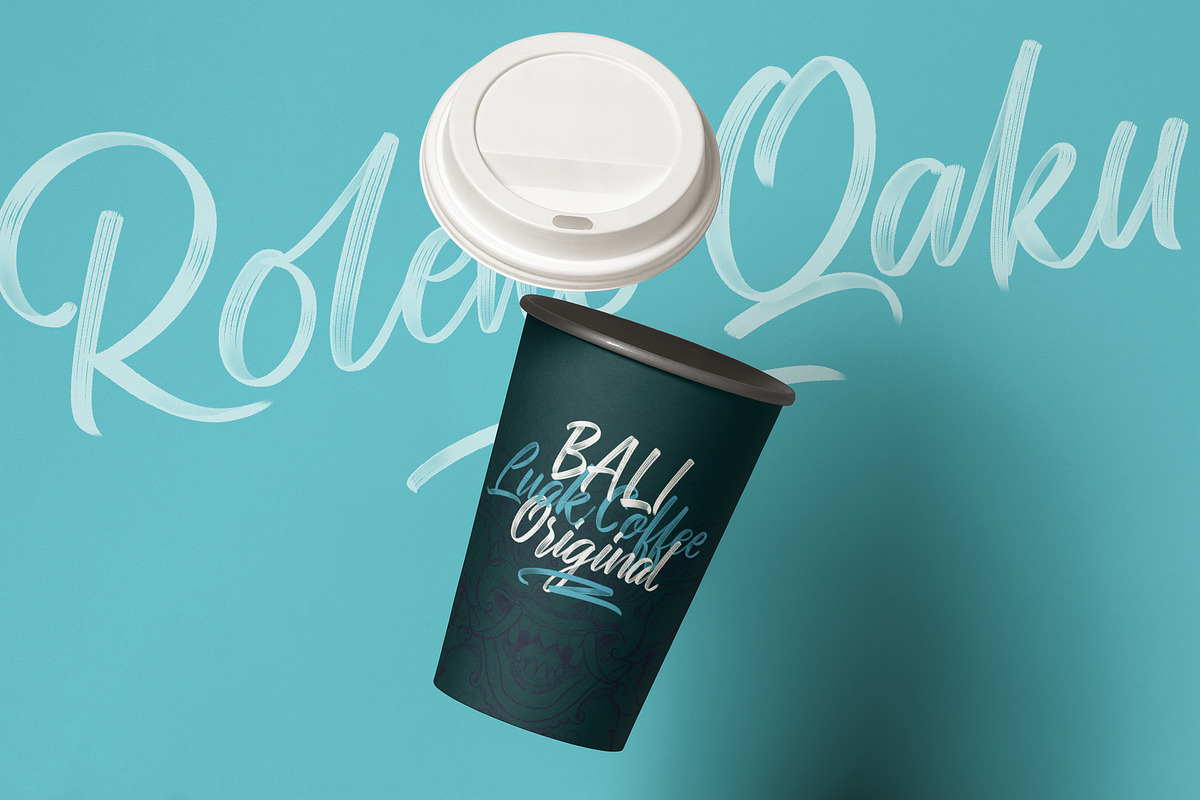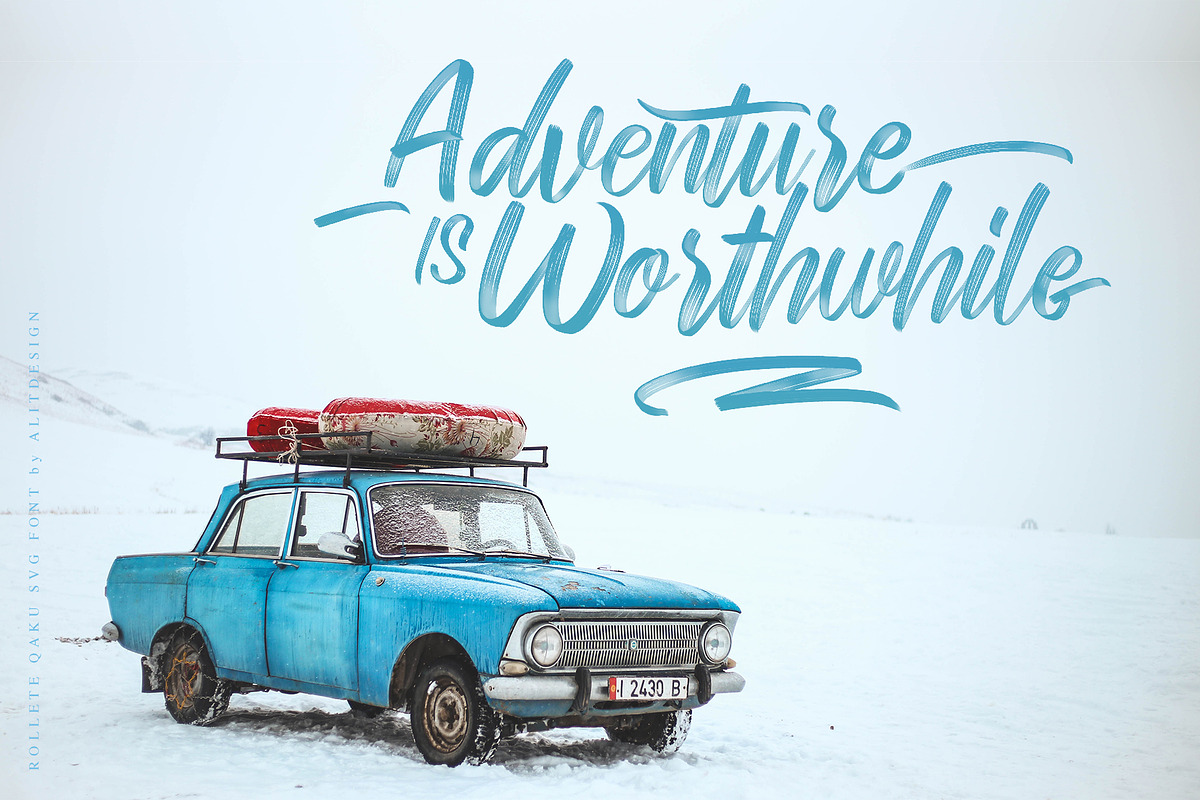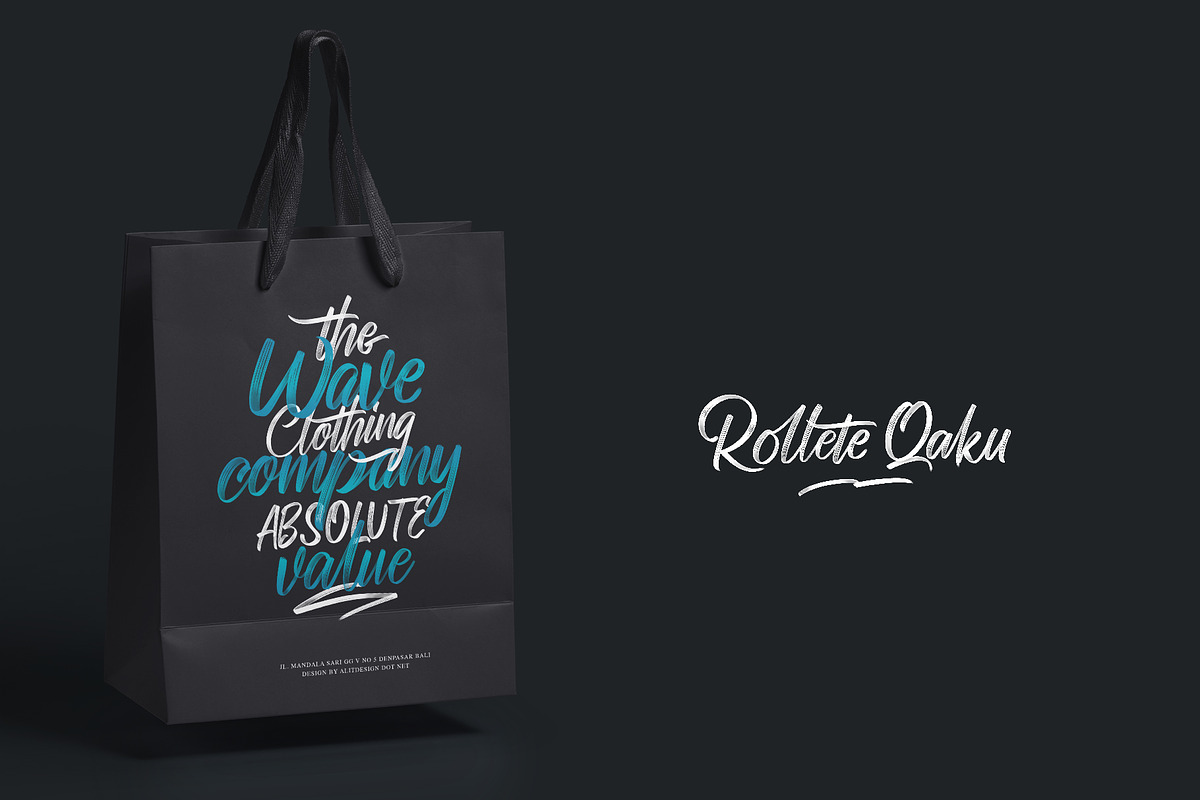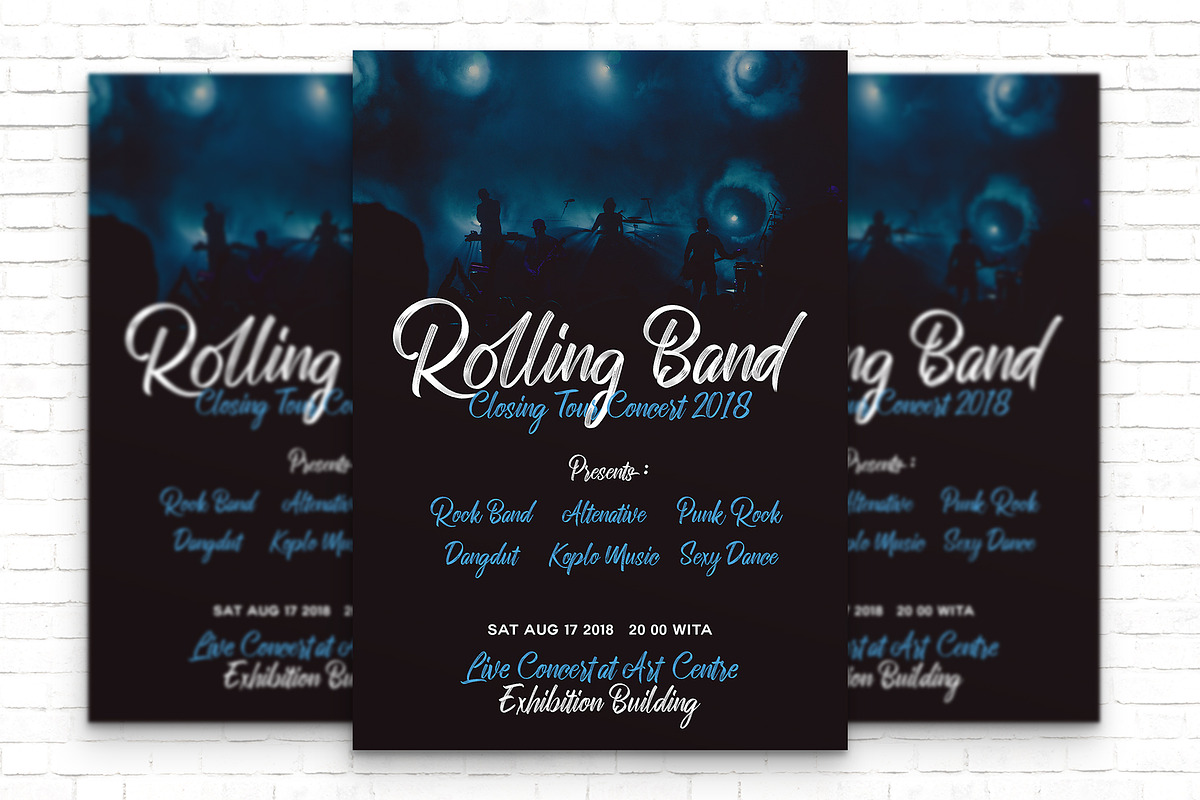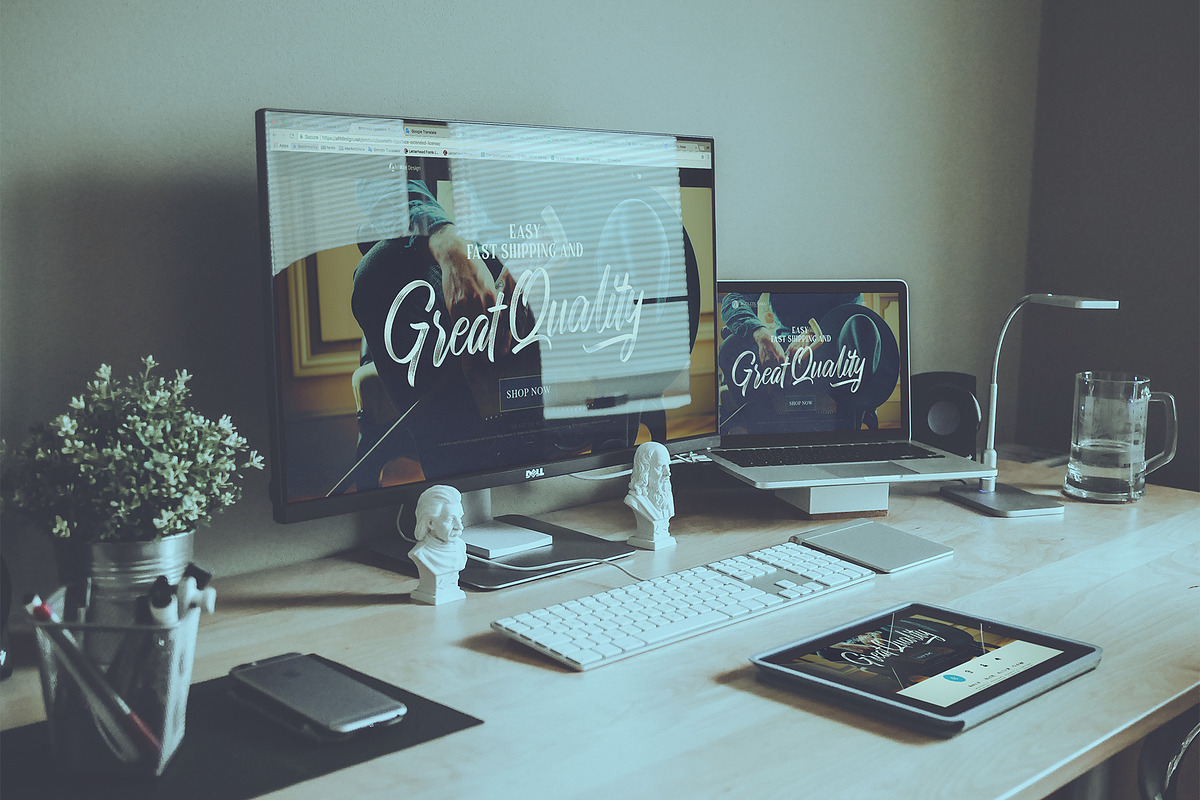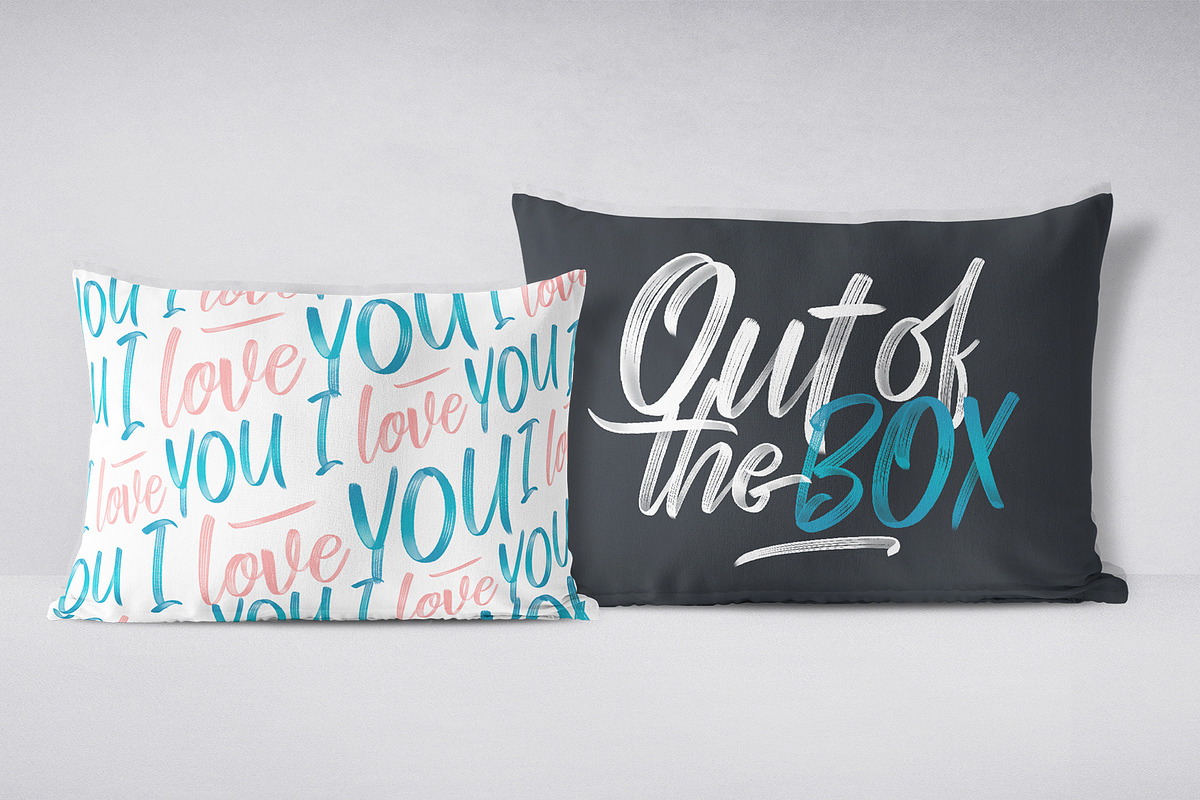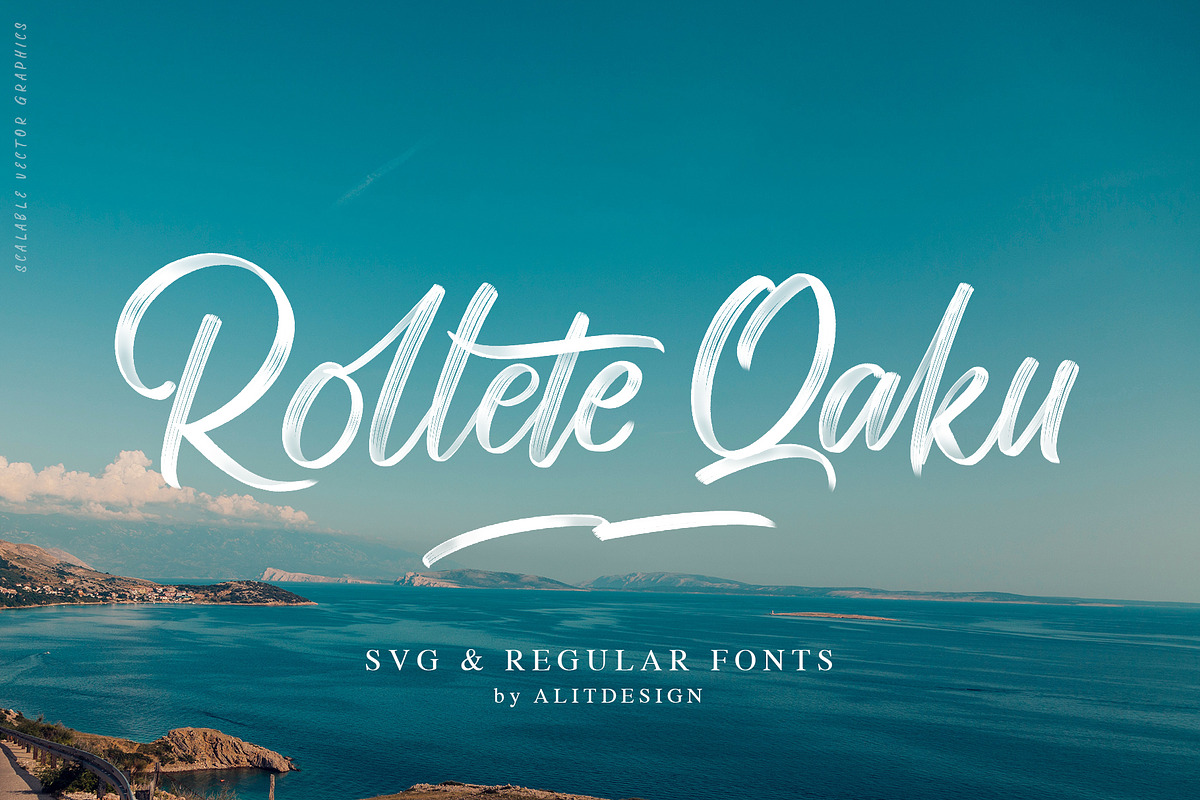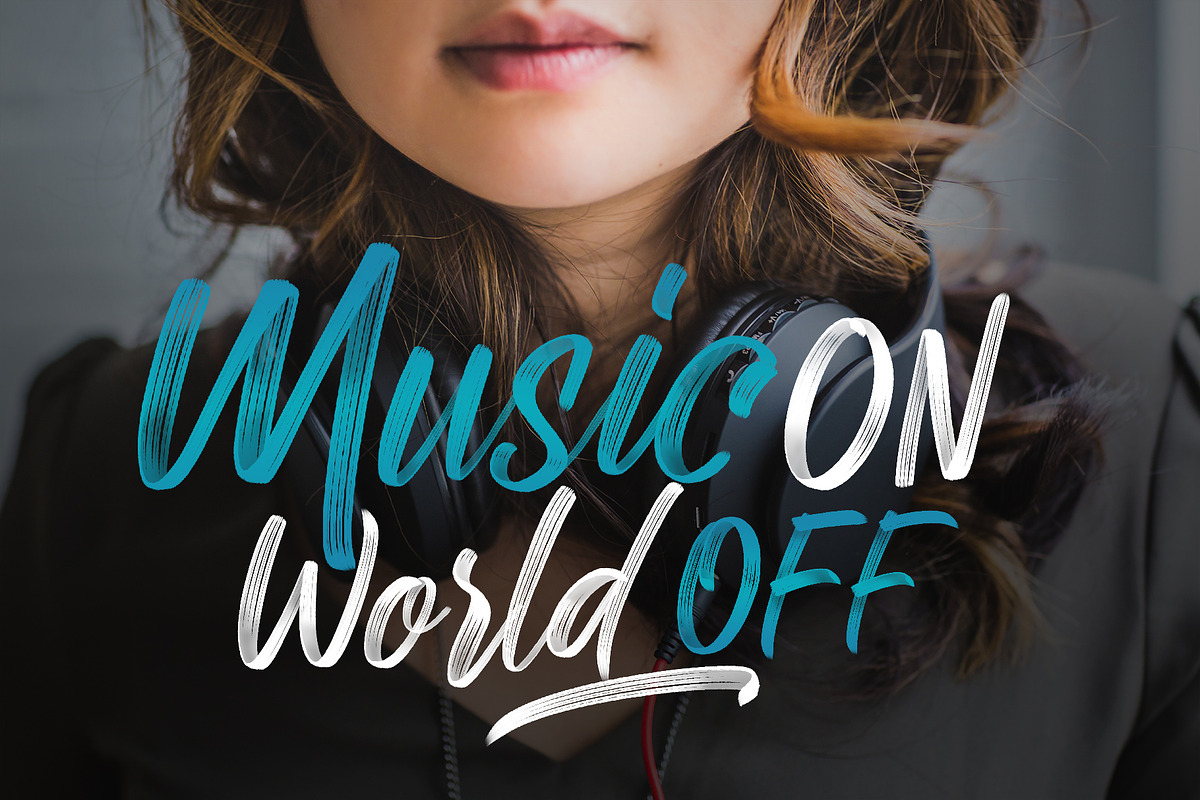
Rollete Qaku Fonts
Yeah .. Brush script with shadow in SVG format is amazing font for lettering design like a quote word design, adventure design, sporty design and any more of have energetic concept. In addition to SVG format that has a natural shadow and texture, you will also get a regular format of course vector soild that has unlimited size. with regular format you can be creative using standard design applications such as adobe illustrator or others ..
This font deserves to be your SVG font collection, because it has a unique style, elegant and sporty. Also very easy to use in adobe photosohop CC. You can see his tutorial in the video preview above.